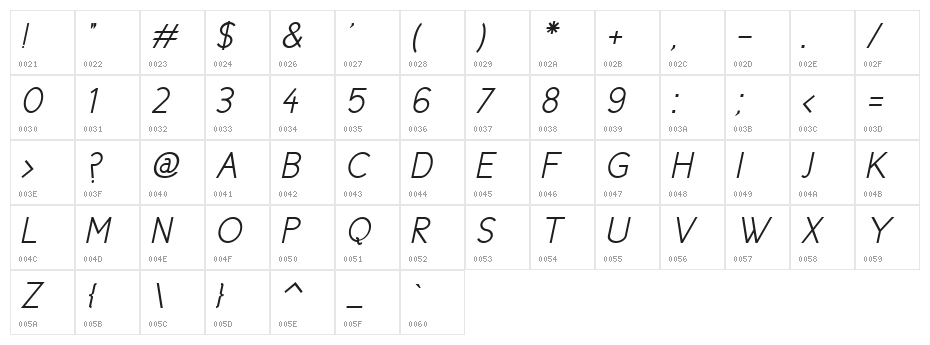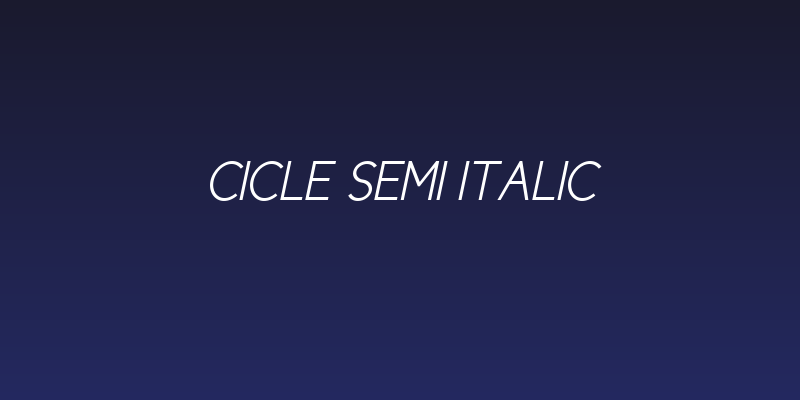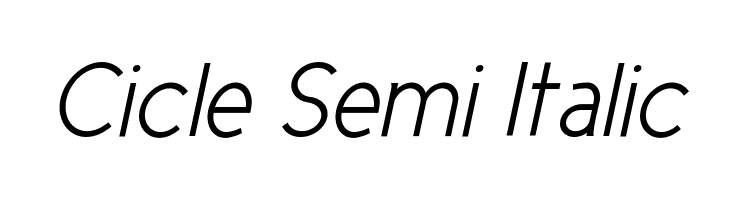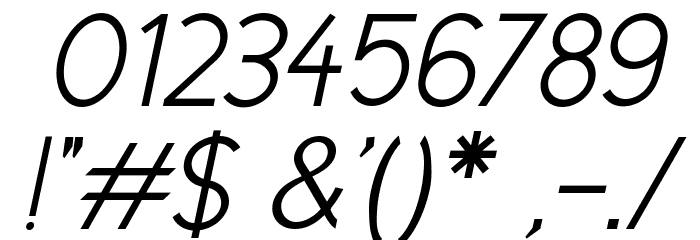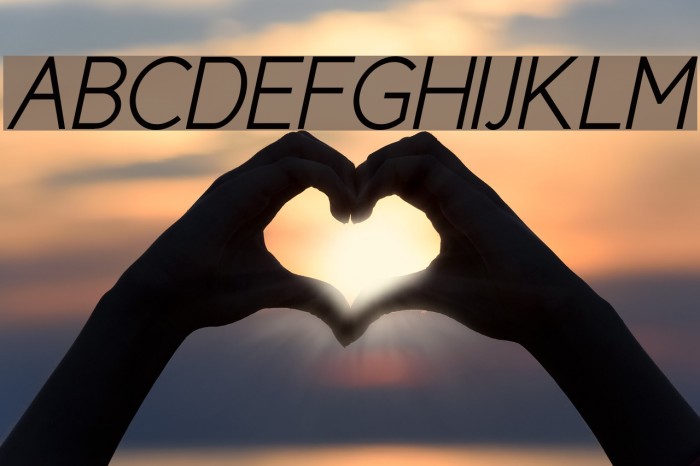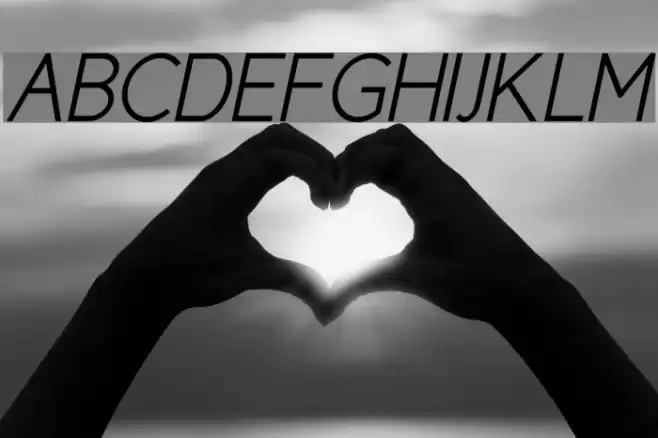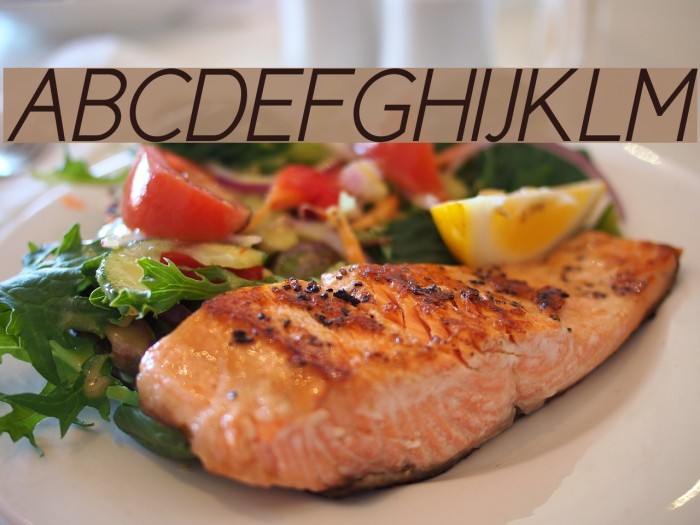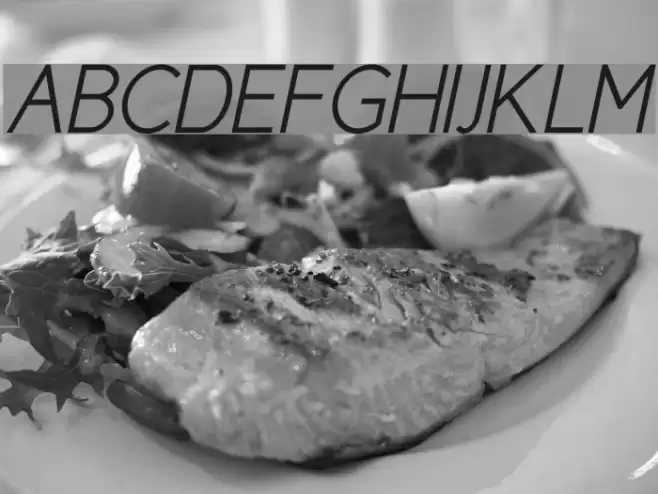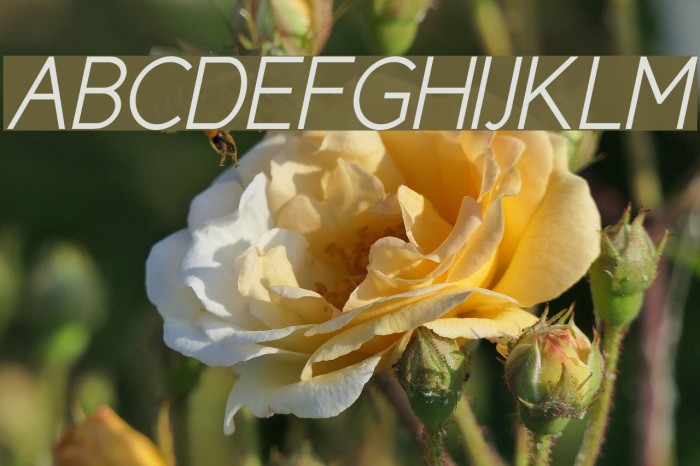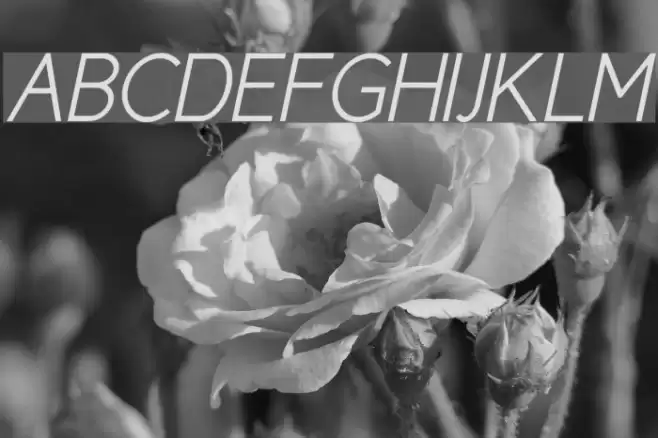
Cicle Semi Italic Font
Cicle Semi Italic Description
This font features a sleek and modern design with a semi-italic style, giving it a dynamic and forward-leaning appearance. The characters are elegantly crafted with smooth curves and a consistent stroke width, providing a clean and sophisticated look. The uppercase letters are slightly taller than the lowercase, maintaining a harmonious balance. Numbers are clear and easily distinguishable, while special characters are well-integrated into the overall design. This font's subtle slant adds a touch of elegance without compromising readability.
| Use Case | Headlines, Body text, Logos |
| Proposed Projects | Ideal for branding, advertising, and editorial design where a modern and elegant touch is desired. |